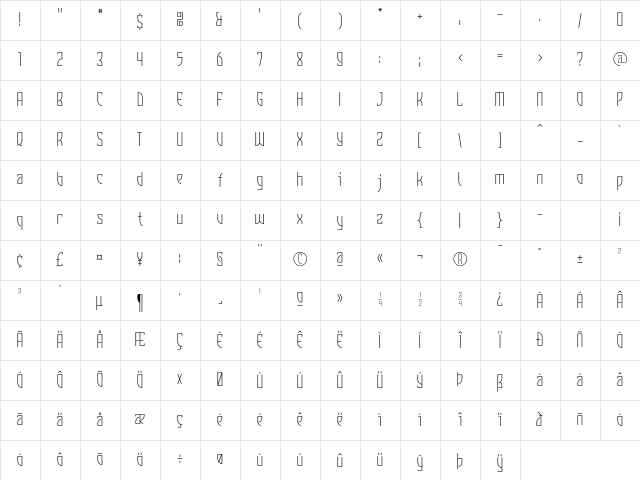
Komunique is a composed and adaptable typeface that performs quietly and consistently across a wide range of design contexts. Its slender proportions lend an understated elegance to any composition.